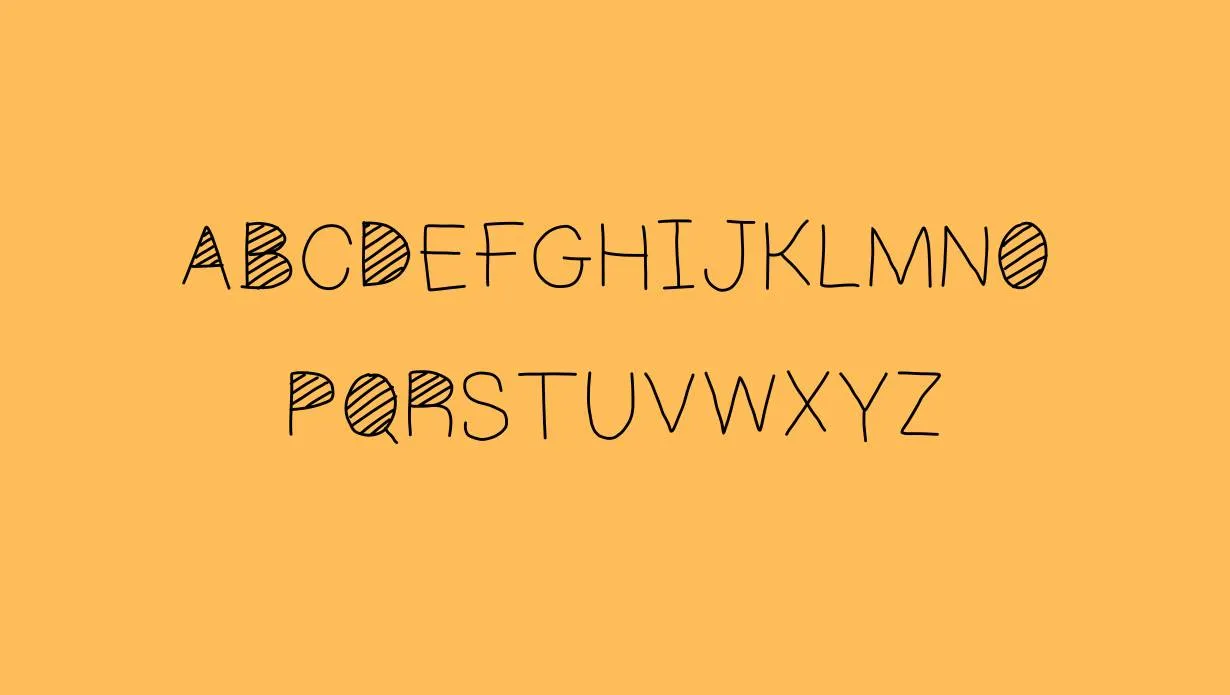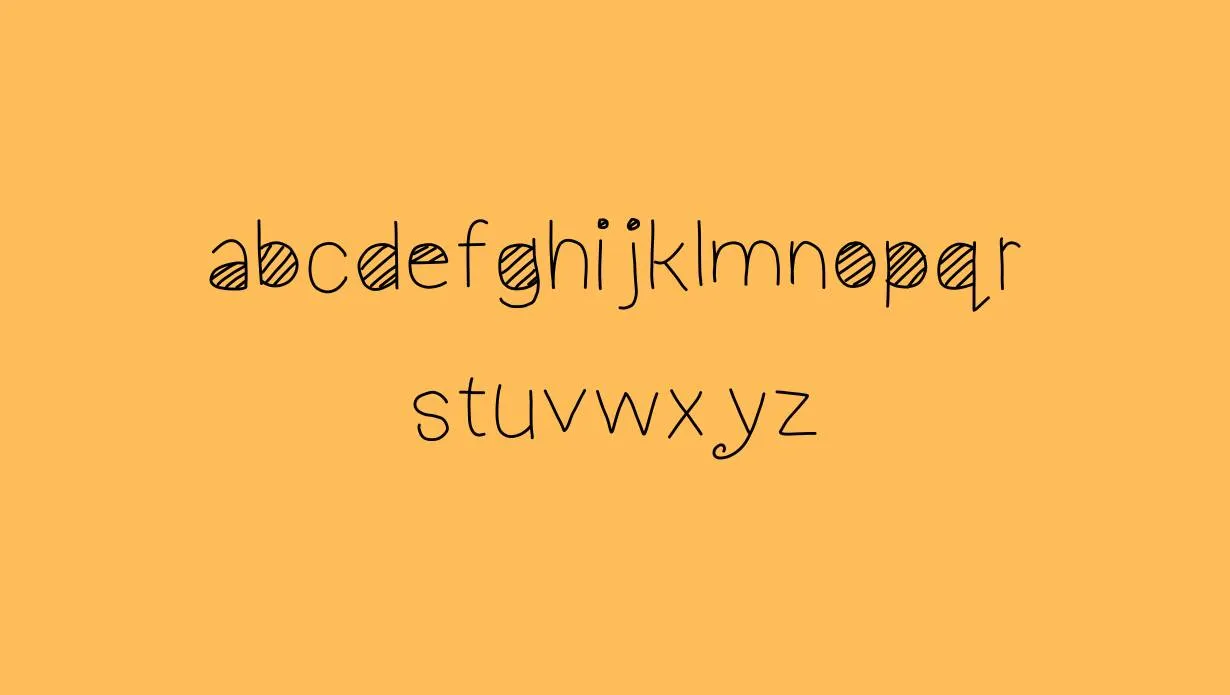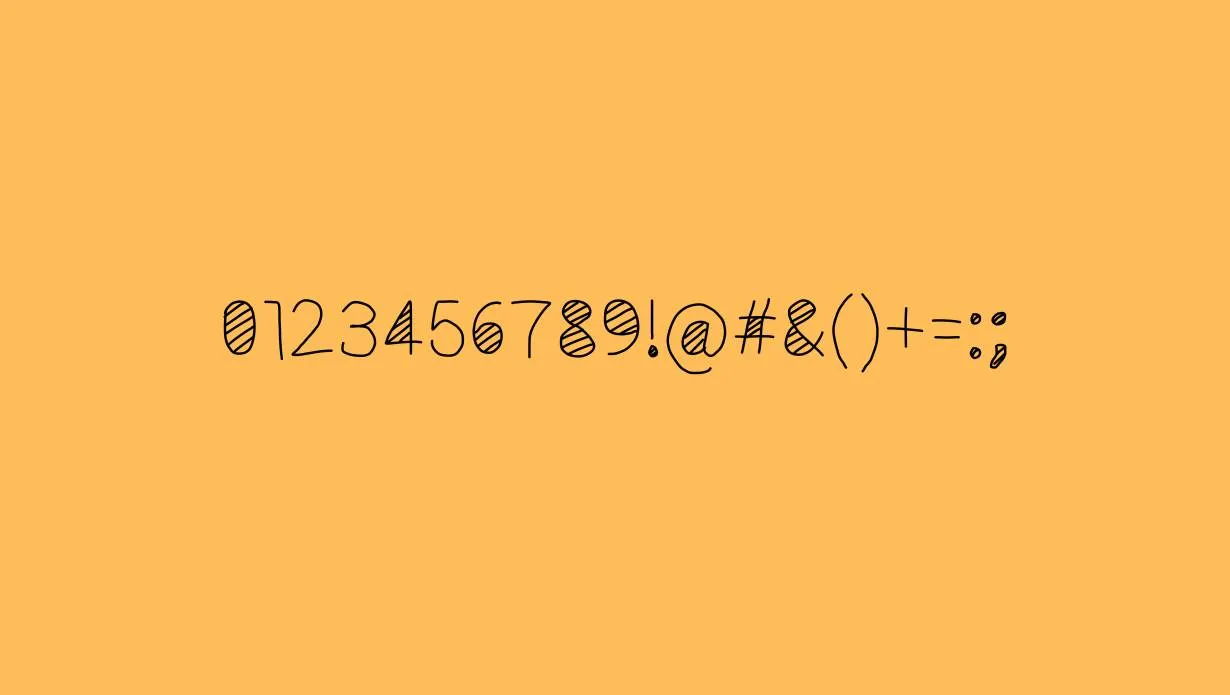
Cool Font is an elegant and wonderful typeface that belongs to the Sans-Serif Font family. This magnificent typeface was created by Galdino Otten in 2015. You can download this amazing typeface from our website in Open-type and True-type formats.
You can fuse this stunning typeface with loki font to get a taste of supreme recognition and success. This blend never fails to amaze the viewer. The common use of this splendid typeface is for body text, headings, subheadings, YouTube thumbnails, and headlines.
| Name | Cool Font |
| Designer | Galdino Otten |